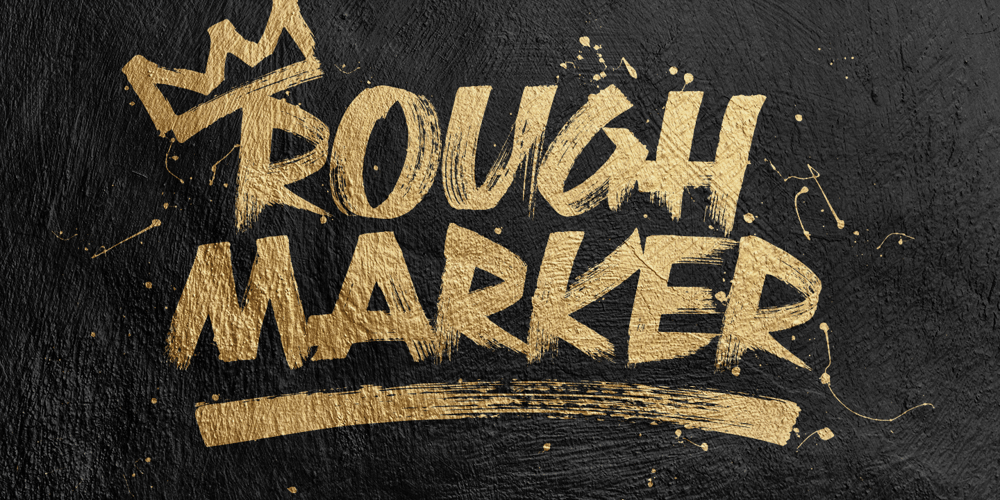
Rough Marker Font Family was designed by Christoph Zeugswetter and published by XTOPH. Rough Marker contains 2 styles and family package options. Rough Marker is an uppercase handwritten typefaces. It comes with 2 letter-variations, swashes & lines and a variety of bonus symbols.